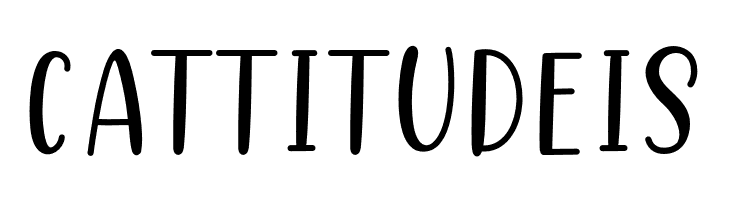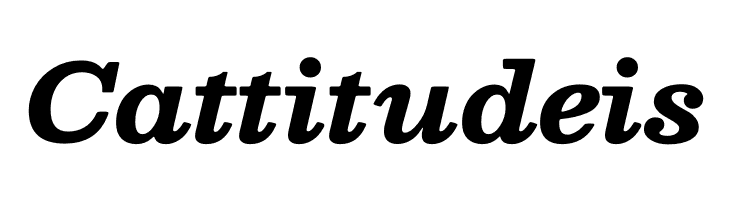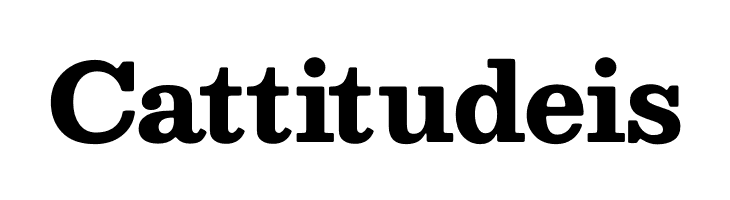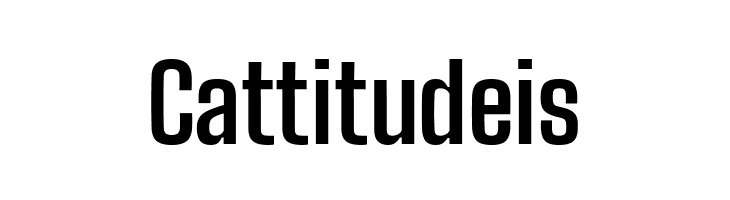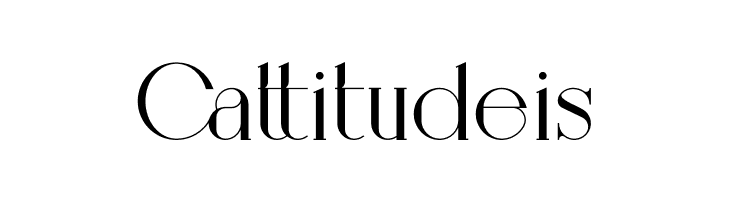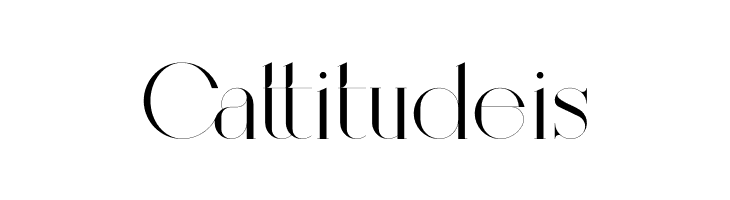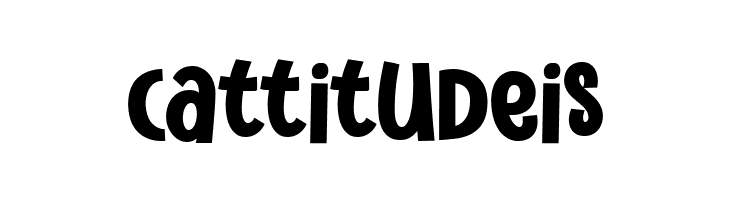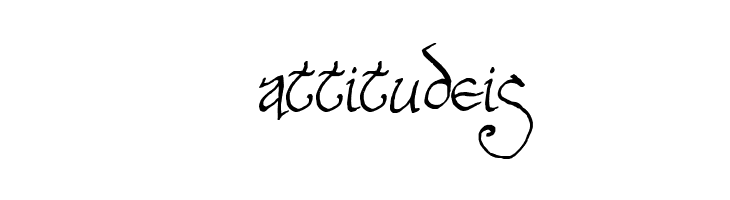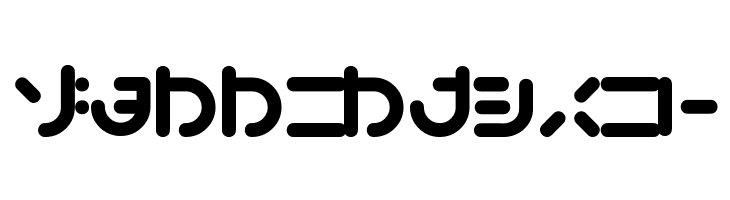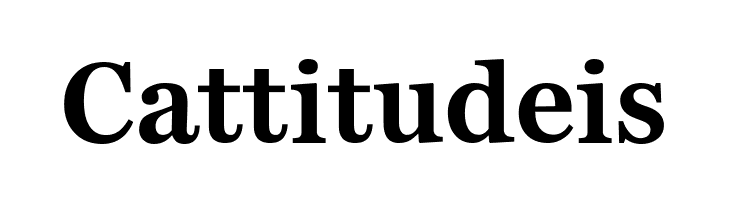
A bold slab serif font with strong, block-like serifs and consistent stroke weight.
Bold, italic serif font with a classic yet dynamic style.
A bold, playful font with thick, rounded strokes and a whimsical style.
A bold, playful font with rounded, whimsical characters.
A bold, futuristic font with geometric and blocky letterforms.
A bold, italicized font with a futuristic and angular design.
A bold, modern sans-serif font with clean lines and excellent readability.
A bold, geometric font with strong, uniform strokes and a modern aesthetic.
A decorative font with stylized animal head motifs, ideal for creative display use.
A bold, rounded font with a playful and energetic style.
A bold, playful font with rounded edges and a smooth, flowing style.
A bold, geometric font with strong, angular lines and a blocky appearance.
A bold, italicized font with sharp, angular characters and a dynamic style.
A bold serif font with strong strokes and classic elegance.
A bold, collegiate-style font with strong geometric shapes and a three-dimensional effect.
A bold, geometric font with a modern, urban style.
A bold, geometric font with a modern and impactful style.
A bold, geometric font with a strong, blocky appearance.
A bold, modern typeface with tall, narrow letterforms and strong vertical emphasis.
A bold, geometric typeface with strong, clean lines and excellent readability.
A bold, playful font with thick, rounded strokes and a whimsical, hand-drawn feel.
A bold, dynamic script font with interconnected characters and sweeping curves.
A bold, angular font with a strong geometric style.
A modern, high-contrast font with elegant, geometric forms.
A high-contrast, elegant font with unique curves and angles.
A bold, modern sans-serif font with clean lines and geometric structure.
A bold serif typeface with a classic and authoritative style.
A bold, geometric font with a futuristic and digital aesthetic.